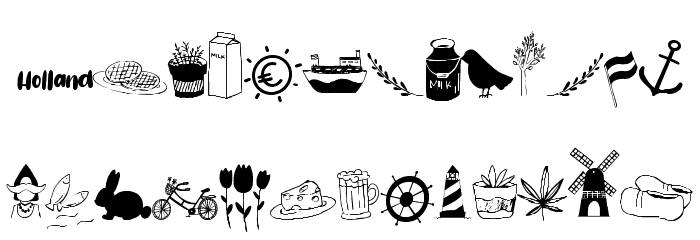
Holland Dingbats Font
This collection of dingbats features a variety of iconic symbols and motifs associated with Holland. The designs include elements such as windmills, tulips, bicycles, and traditional Dutch foods like cheese and stroopwafels. Each symbol is crafted with a playful and illustrative style, making them ideal for adding a touch of Dutch culture to any project. The images are bold and clear, with a consistent line weight that ensures visibility and impact. The set captures the essence of Holland through its charming and recognizable imagery, perfect for decorative purposes.
A playful collection of Holland-themed dingbats featuring iconic Dutch symbols.
- Font: Holland Dingbats
- Proposed Projects: Ideal for travel brochures, cultural event posters, themed merchandise, and educational materials about Holland.
- Use Case: Logos, Decorative elements, Themed designs